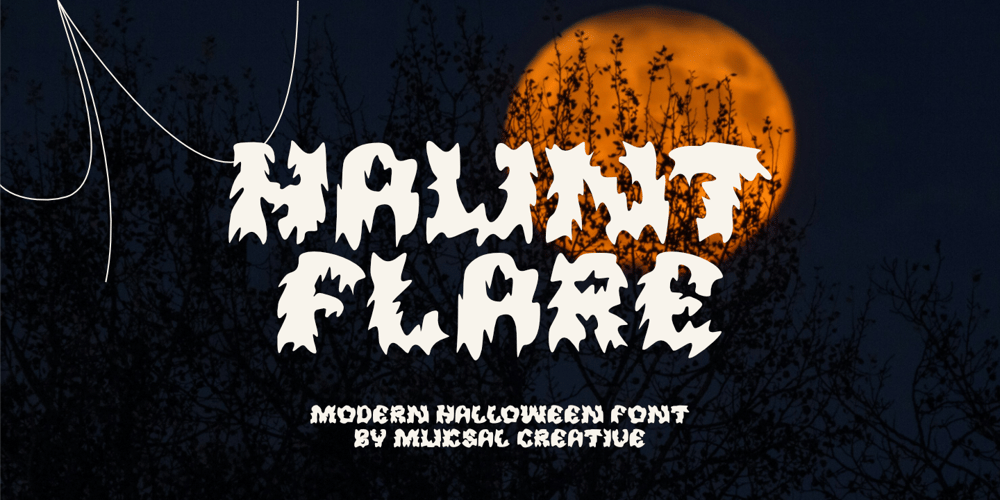
Hauntflare
Hauntflare font
Hauntflare Font Family was designed by Muksalmina and published by Muksal Creatives. Hauntflare contains 1 styles and family package options. Hauntflare is a display font brimming with horror and fiery energy, specifically designed for spooky themes, Halloween, or any eerie event. With sharp, jagged letterforms that appear ablaze, Hauntflare exudes a dark and ominous vibe. Each character comes alive with a burning effect, creating a frightening yet unique impression.Perfect for Halloween event posters, horror movie titles, spooky book covers, and other fear-filled graphic designs. Hauntflare is here to evoke terror while delivering a dramatic and artistic touch. A fusion of terror and flames brought to life in unforgettable visuals.